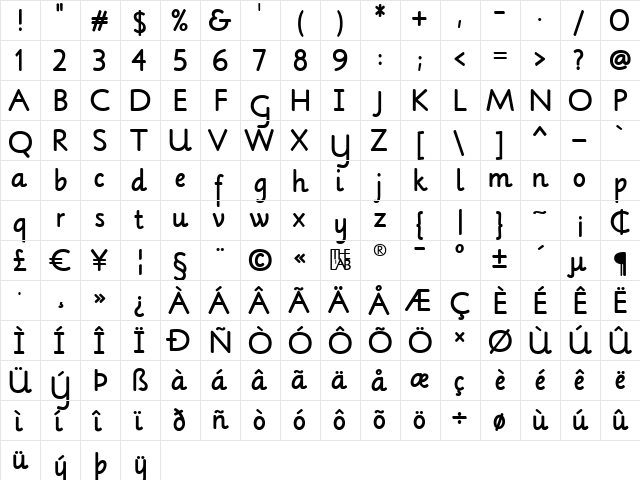
Lilly Regular
Design Context for Lilly Typeface
Lilly offers clean, dependable letterforms without strong stylistic allegiance, making it a practical choice for designers who need flexibility.
Pro Tip: Use Lilly in both headline and body roles to test its range before committing to a single application.